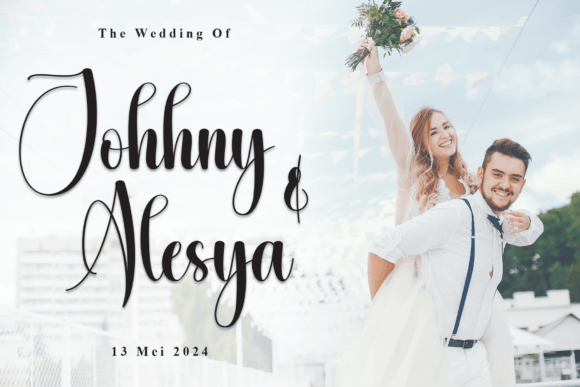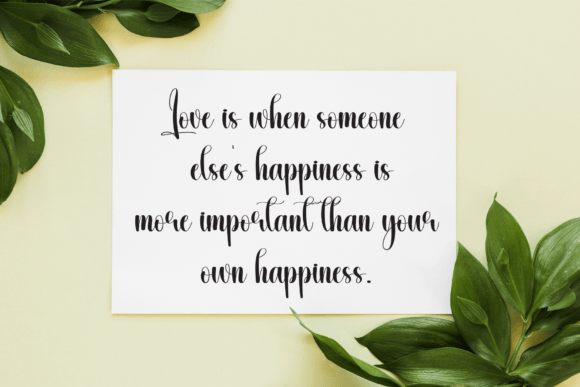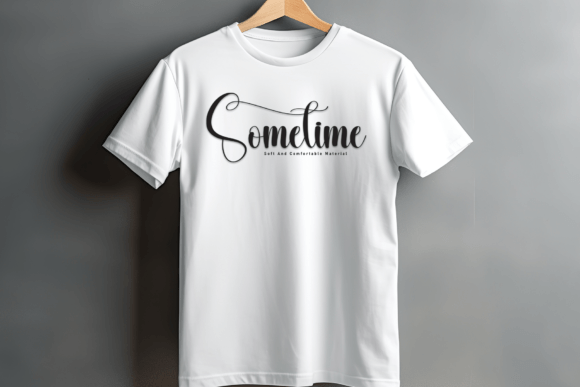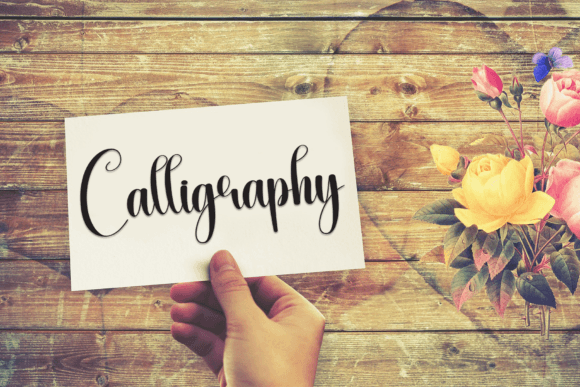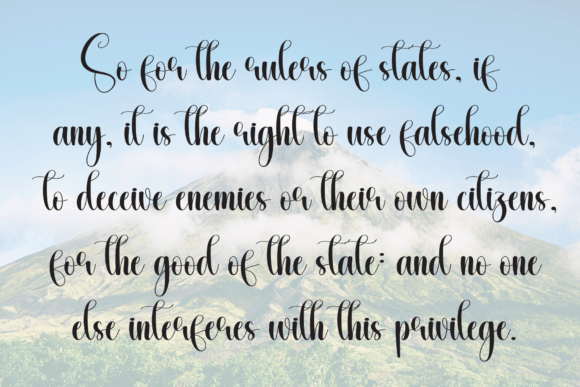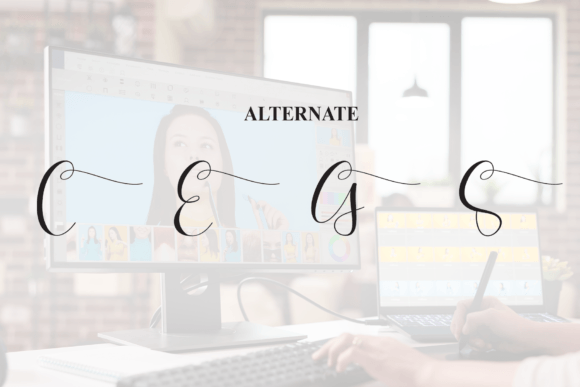
Introducing Grading Font: Elevate Your Designs with Elegance and Sophistication
In the world of typography, fonts play a crucial role in conveying the tone and personality of a design. For designers and crafters seeking to add a touch of elegance and sophistication to their work, Grading Font is an exceptional choice. This stylish and incredibly elegant script font is perfect for a variety of applications, from wedding invitations and thank you cards to quotes, greeting cards, logos, and business cards.
The Characteristics of Grading Font
Grading Font boasts a unique and refined aesthetic, characterized by its fluid strokes and beautiful connections. Its elegant appearance is reminiscent of handwritten calligraphy, making it an excellent option for designs that require a personal and sophisticated touch. The font’s versatility allows it to be used in various contexts, from formal events to everyday branding.
Wedding designers and event planners, rejoice! Grading Font is an excellent choice for creating stunning wedding invitations, save-the-date cards, and other event-related materials. Its elegant and refined appearance sets the tone for a sophisticated and memorable celebration. Whether you’re designing for a luxurious wedding, a baby shower, or a milestone birthday party, Grading Font is sure to impress.
Ideal for Crafters and Stationery Enthusiasts
Crafters and stationery enthusiasts, you’ll love Grading Font for its ability to add a personal touch to your handmade creations. Use it to create beautiful journal pages, decorate your planners, or design custom greeting cards. The font’s elegant appearance will elevate your craft projects and make them truly special.
- Elegant and sophisticated design: Grading Font features a refined and stylish aesthetic that’s perfect for high-end designs.
- Versatile and flexible: Use it for a wide range of applications, from wedding designs to everyday branding.
- Handwritten touch: Add a personal and human touch to your designs with Grading Font’s beautiful, handwritten appearance.
- Easy to read: Despite its elegant appearance, Grading Font remains clear and easy to read, making it perfect for body text and captions.
Tips for Using Grading Font Effectively
To get the most out of Grading Font, consider the following tips:
- Pair it with contrasting fonts: Combine Grading Font with bold or sans-serif fonts to create visual interest and hierarchy.
- Experiment with colors and textures: Add depth and dimension to your designs by experimenting with different colors and textures.
- Use it sparingly: Grading Font’s elegance can be overwhelming if overused. Balance it with simpler fonts to create a harmonious design.
Grading Font is an exceptional choice for designers and crafters seeking to add a touch of elegance and sophistication to their work. Its versatile and refined aesthetic makes it perfect for a wide range of applications, from wedding designs to everyday branding. With its beautiful, handwritten appearance and easy readability, Grading Font is sure to elevate your designs and make them truly special.